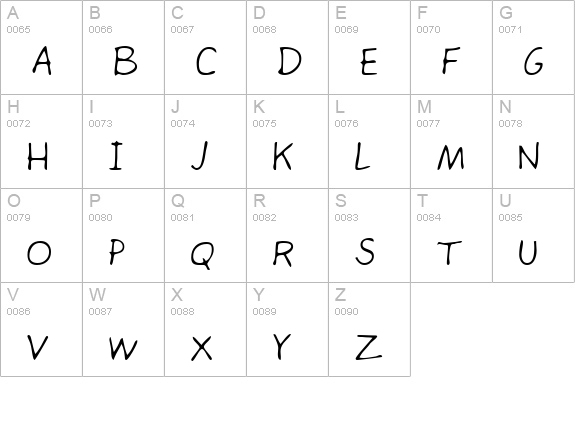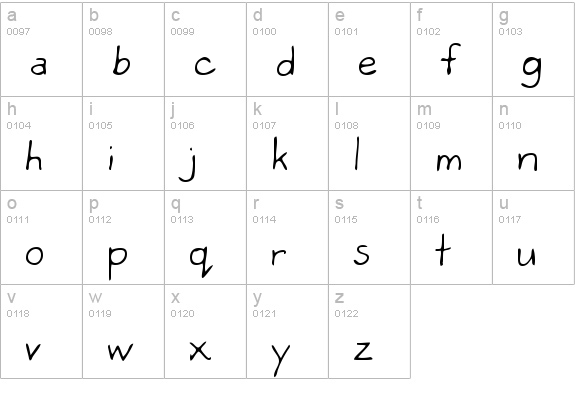
VeronicasHand Regular Font Details
VeronicasHand Regular is the standard, neutral variant in the VeronicasHand typeface family \xE2\x80\x94 well suited to general body text, paragraphs, and standard typographic work.
VeronicasHand Regular is a charming and versatile font that captures the essence of handwritten scripts. With its elegant and flowing strokes, this font adds a touch of sophistication and personalization to any design project. Whether you are looking to create wedding invitations, greeting cards, or stylish logos, VeronicasHand Regular is the perfect choice. Its unique combination of delicate curves and bold lines creates a harmonious balance that is visually appealing and easy to read. One of the best things about VeronicasHand Regular is that it is freely available to download at FontsMarket.com. This means that you can enjoy the beauty and functionality of this font without any cost. Whether you are a professional designer or a hobbyist, having access to a high-quality font like VeronicasHand Regular can elevate your work to a whole new level. With its extensive character set, VeronicasHand Regular offers multilingual support, allowing you to communicate your message in various languages. Its versatility extends to both print and digital mediums, ensuring that your designs stand out on any platform. Whether you are creating a vintage-inspired poster or a modern website, VeronicasHand Regular adds a touch of elegance and handmade charm. Its timeless appeal and versatility make it a go-to font for designers looking to add a personal touch to their projects. So why wait? Download VeronicasHand Regular today from FontsMarket.com and unlock the creative possibilities that this font has to offer. Let your imagination run wild and create stunning designs that leave a lasting impression.